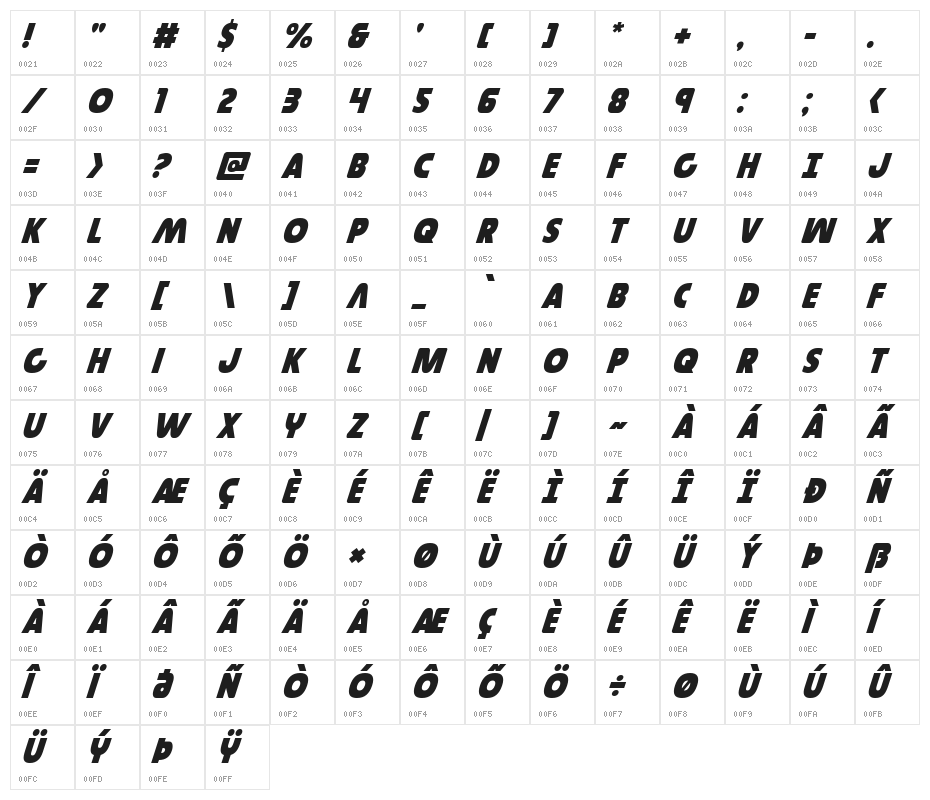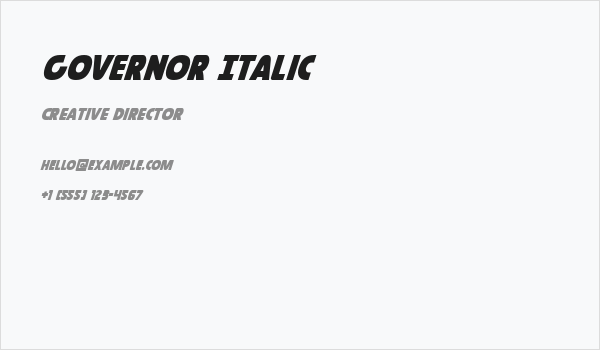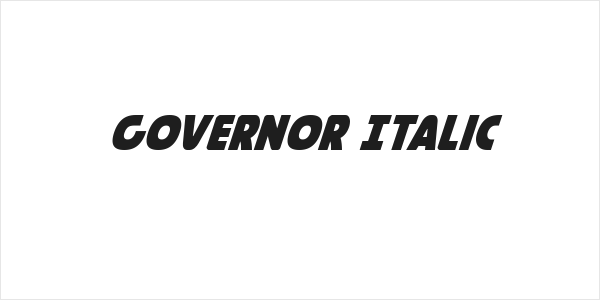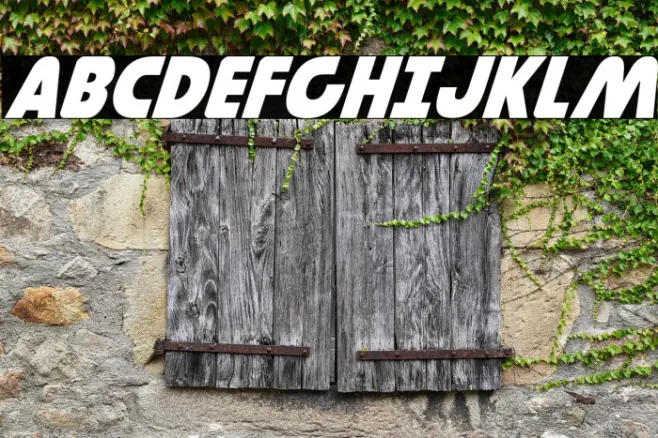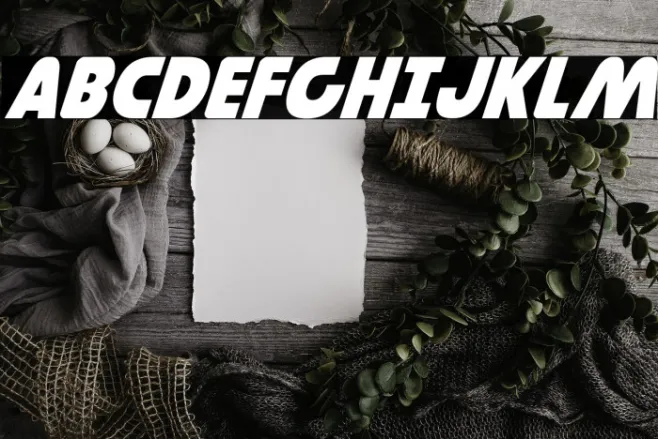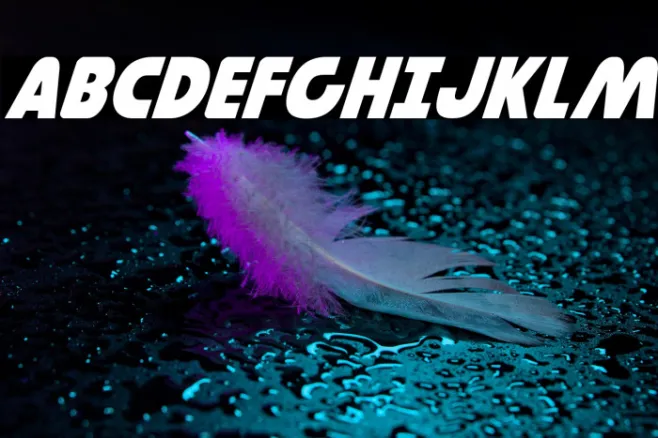
Governor Italic Font
Governor Italic Description
This font features a bold and dynamic style with a strong italic slant, giving it a sense of motion and energy. The characters are thick and robust, with a consistent stroke width that emphasizes its boldness. The letters are closely spaced, enhancing the compact and impactful appearance. This font is well-suited for making a statement, with its high contrast and distinctive style. The uppercase and lowercase letters maintain a uniform look, while the numerals and special characters complement the overall design. Its modern and assertive aesthetic makes it ideal for attention-grabbing headlines and logos.
| Proposed Projects | Ideal for branding, advertising, posters, and impactful headlines. |